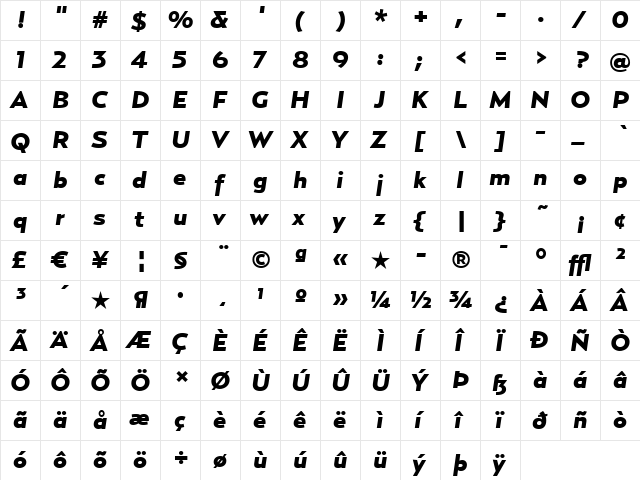
RelayWide-BlackItalic Regular
| Designer | Cyrus Highsmith |
Design Context for RelayWide-BlackItalic Typeface
RelayWide-BlackItalic offers clean, dependable letterforms without strong stylistic allegiance, making it a practical choice for designers who need flexibility. The dynamic lean of this cut emphasises speed and emphasis in any layout.